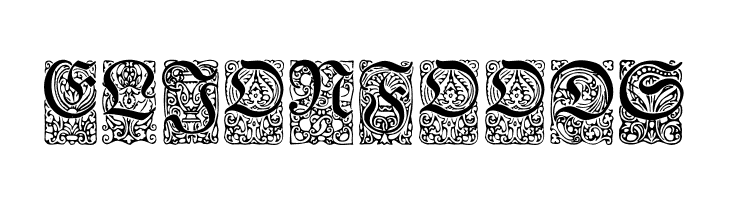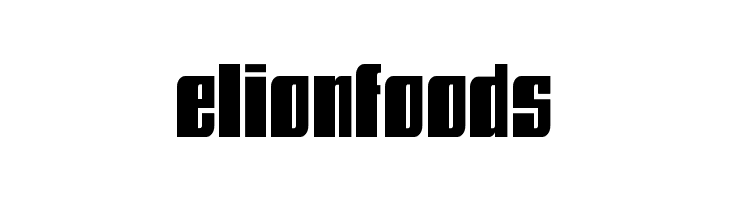
A bold, geometric font with a futuristic and edgy style.
A bold, geometric font with a modern and playful aesthetic.
A bold, playful font with whimsical and irregular character shapes.
A bold, textured font with a rugged, hand-crafted appearance.
An ornate, Gothic-inspired decorative font with intricate floral designs.
An ornate and intricate Blackletter font with a medieval and historical appearance.
A bold serif font with barbed wire detailing for a rugged, edgy look.
A bold, dynamic font with a slight slant and consistent stroke width.